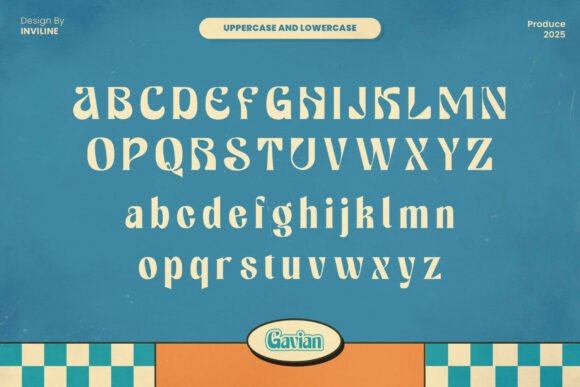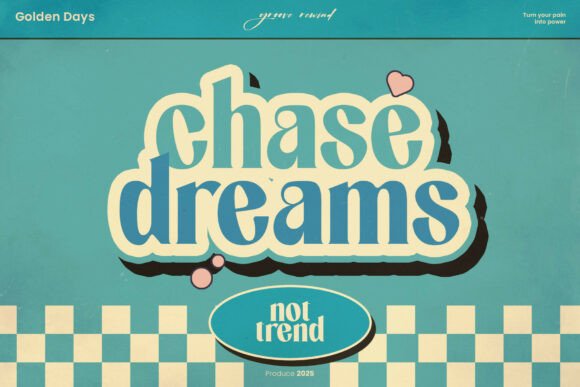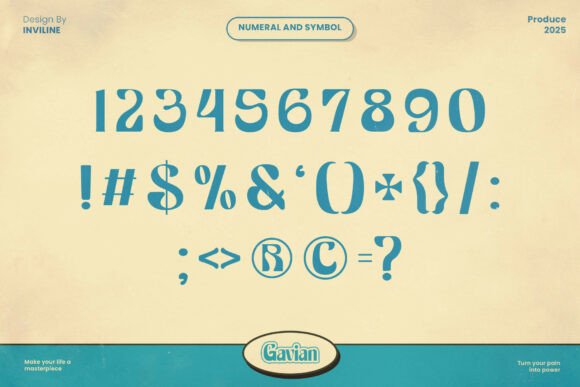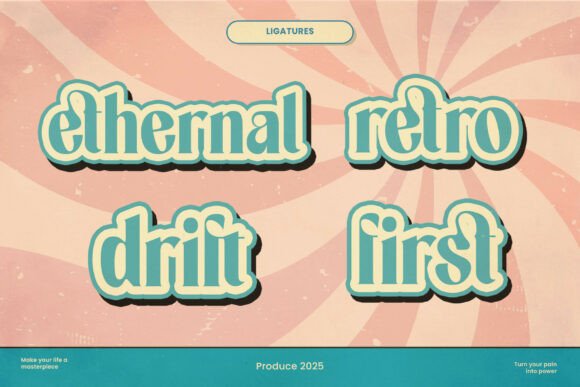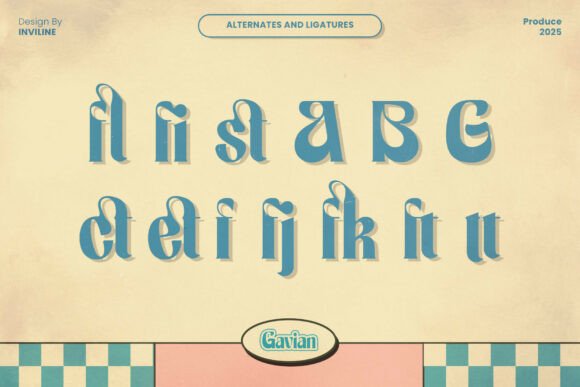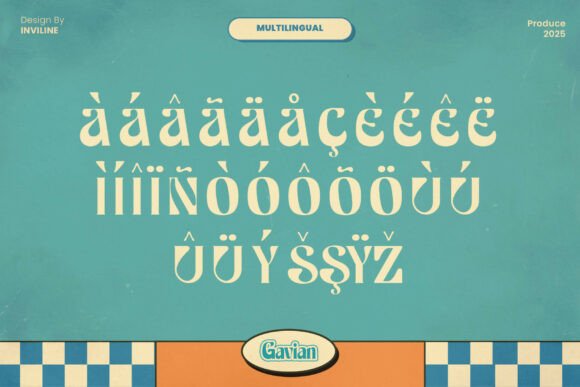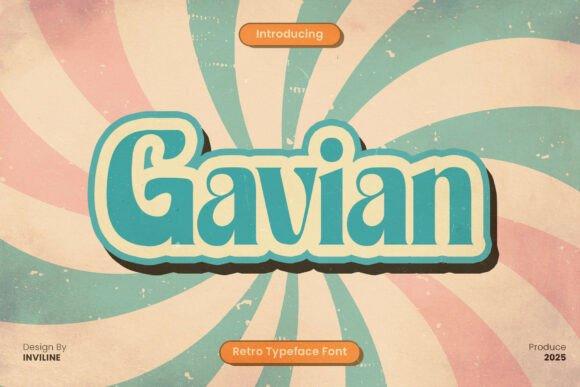
Gavian Regular Font: A Captivating Retro Typeface for Your Designs
Are you looking for a font that can instantly transport your designs to a vibrant, bygone era? Look no further than the Gavian Regular Font, a captivating retro typeface that is sure to evoke a sense of nostalgic playfulness in your designs. With its bold, rounded forms and distinctive personality, Gavian is a display font with strong character that is perfect for a wide range of design applications.
The Characteristics of Gavian Regular Font
Gavian Regular Font is a beautifully crafted font that includes both uppercase and lowercase letters, providing versatility for various design projects. Its bold, rounded forms are instantly recognizable, and its distinctive personality makes it a standout in any design. The font’s unique style is perfect for creating impactful and memorable visual identities that stand out from the crowd.
The Benefits of Using Gavian Regular Font
So why choose Gavian Regular Font for your designs? Here are just a few benefits of using this amazing font:
- Vintage Aesthetic: Gavian Regular Font has a unique vintage aesthetic that is perfect for projects seeking a retro or nostalgic feel. Whether you’re designing a logo, brochure, or website, this font is sure to evoke a sense of nostalgia and playfulness.
- Versatility: With both uppercase and lowercase letters, Gavian Regular Font is versatile enough to be used for a wide range of design applications, from branding and packaging to posters, headlines, and digital media.
- Impactful and Memorable: The font’s bold, rounded forms and distinctive personality make it perfect for creating impactful and memorable visual identities that stand out from the crowd.
Design Applications for Gavian Regular Font
Gavian Regular Font is a versatile font that can be used for a wide range of design applications, including:
- Branding and Packaging: Use Gavian Regular Font to create eye-catching logos, labels, and packaging that stands out on store shelves.
- Posters and Headlines: The font’s bold, rounded forms make it perfect for creating eye-catching posters and headlines that grab attention.
- Digital Media: Use Gavian Regular Font to create engaging and memorable digital media, such as social media graphics, website headers, and email newsletters.
Tips for Using Gavian Regular Font
Here are a few tips for using Gavian Regular Font in your designs:
- Use it boldly: Gavian Regular Font is a bold font, so don’t be afraid to use it boldly in your designs. Use it as a statement piece to grab attention and create impact.
- Experiment with colors: The font’s vintage aesthetic lends itself well to bright, bold colors. Experiment with different color combinations to find the perfect look for your design.
- Pair it with other fonts: Gavian Regular Font can be paired with other fonts to create a unique and interesting design. Try pairing it with a sans-serif font for a modern contrast.
| Font Name | Gavian Regular Font |
| Author | Inviline |
In conclusion, Gavian Regular Font is a captivating retro typeface that is perfect for designers and crafters looking to add a touch of nostalgia and playfulness to their designs. With its bold, rounded forms and distinctive personality, this font is sure to evoke a sense of vintage charm in any design. Whether you’re designing a logo, brochure, or website, Gavian Regular Font is a versatile and impactful font that is sure to make your designs stand out.